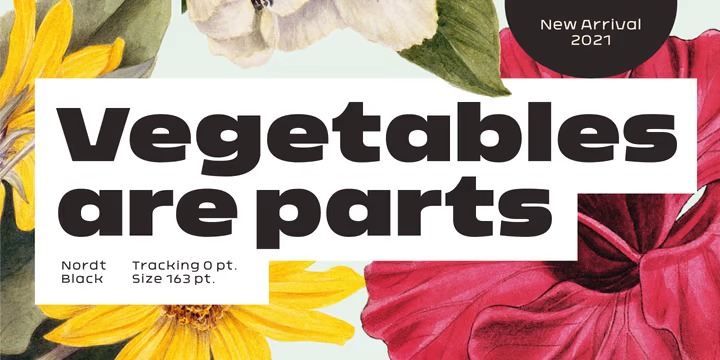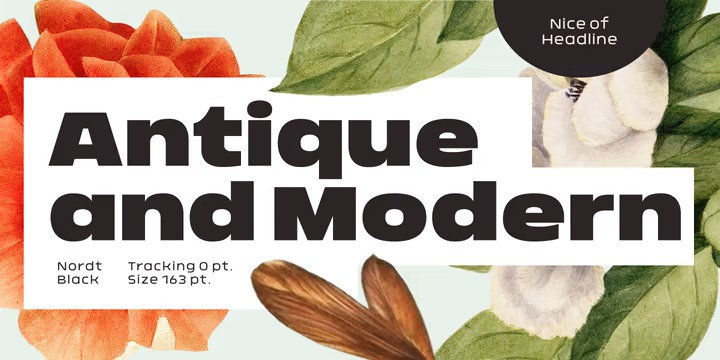
Nordt Sans Serif Font
This font belongs to a tradition of general-purpose, unadorned sans-serif types that had become dominant in German printing during the nineteenth century. Nordt is a typeface made up of 40 fonts across 10 weights with normal and slim options. It’s a unique and modern sans typeface, which is well suited for a variety of typographic applications such as headlines and small texts. The Nordt font family supports multiple languages and is available as both webfont and desktop font.